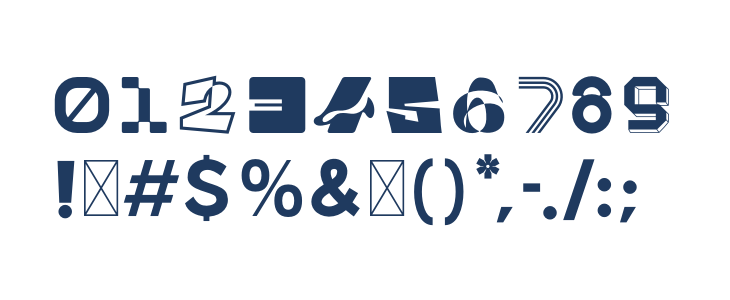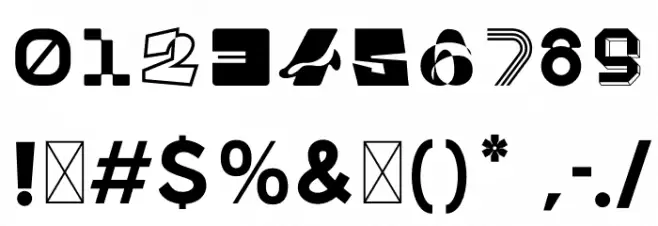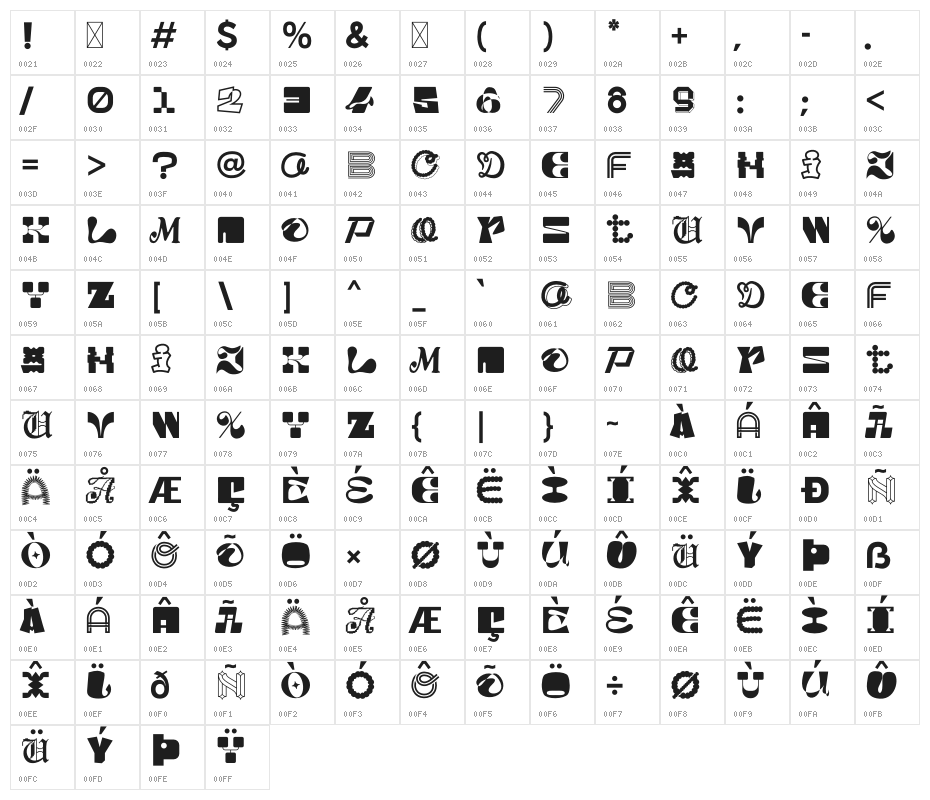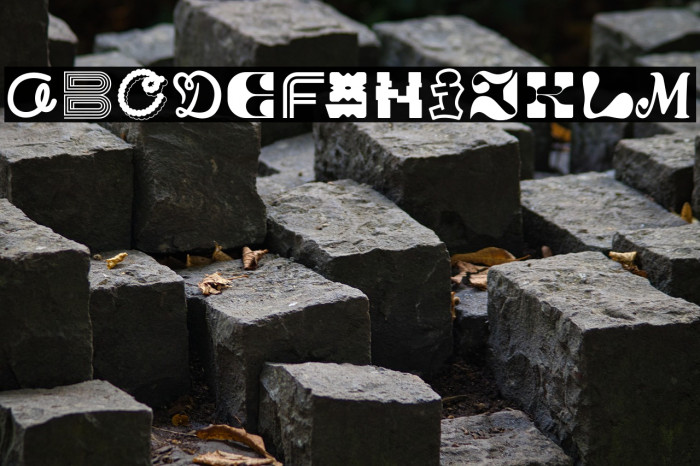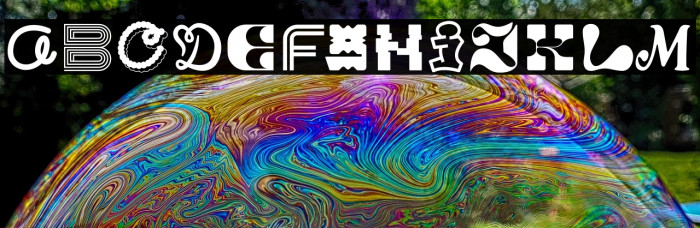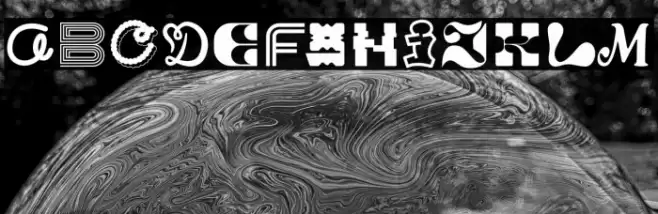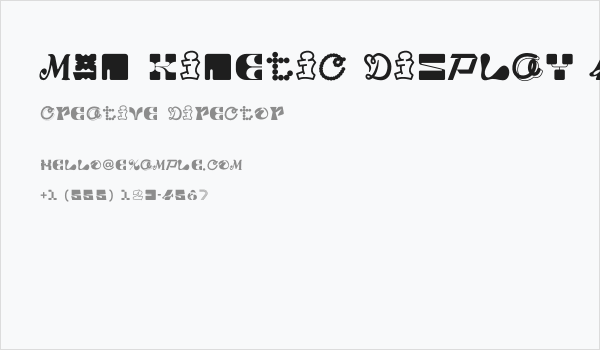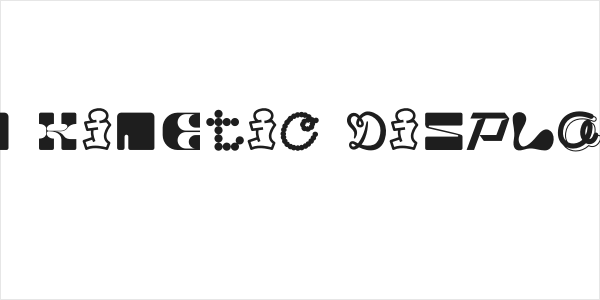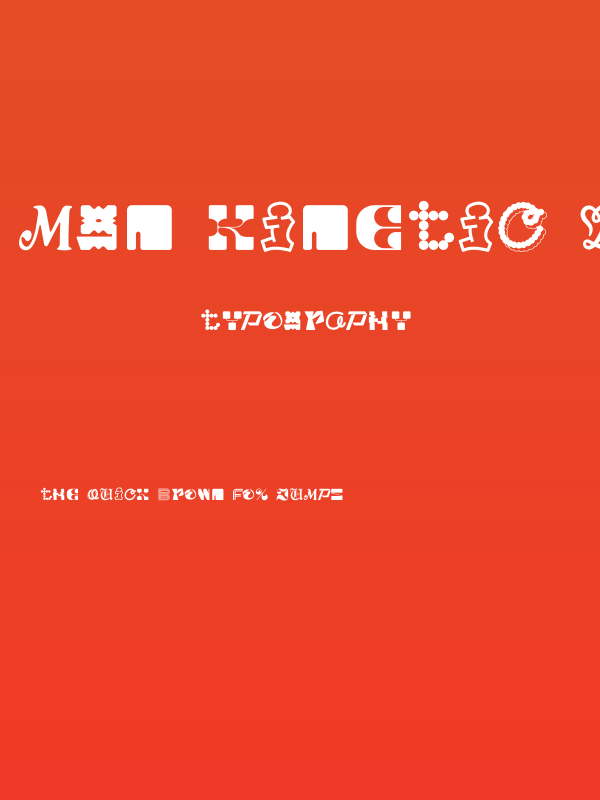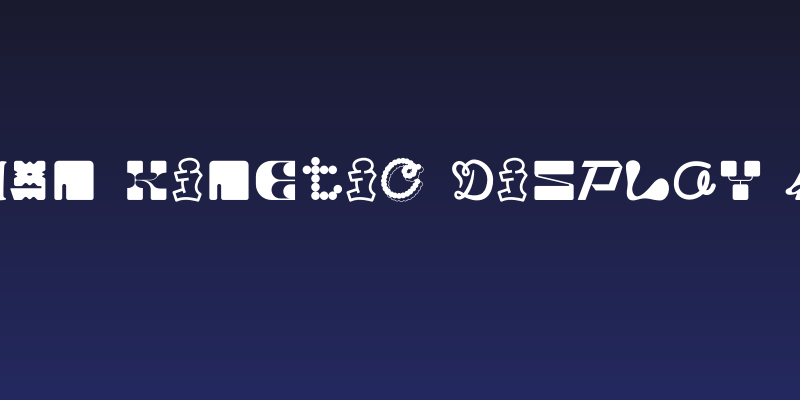
MGN Kinetic Display 4 Font
MGN Kinetic Display 4 Description
This font is a vibrant and eclectic display typeface that combines a variety of styles and elements, creating a dynamic and visually striking appearance. Each character is uniquely designed, incorporating geometric shapes, bold lines, and intricate patterns. The uppercase letters feature a mix of solid fills and outlined forms, while the lowercase letters continue this playful and artistic theme. The numerals and special characters are equally diverse, offering a range of styles from blocky and bold to sleek and linear. This font's versatility and creativity make it ideal for projects that require a strong visual impact.
| Proposed Projects | Ideal for posters, album covers, branding projects, and any design requiring a bold, artistic touch. |